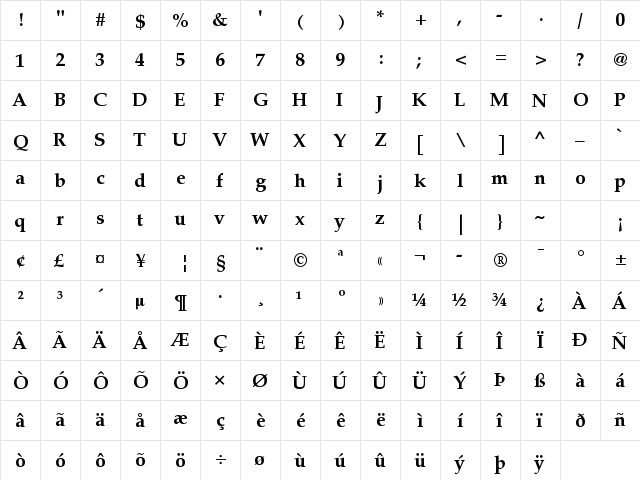
Bahij Nazanin Bold
| Foundry | Tiro Typeworks for Adobe Systems Incorporated. |
| Designer | Tim Holloway (Arabic) and Robert Slimbach (Latin) |
Design Context for Bahij Nazanin Typeface
Bahij Nazanin offers clean, dependable letterforms without strong stylistic allegiance, making it a practical choice for designers who need flexibility. Its bold stroke weight gives it real presence on the page.